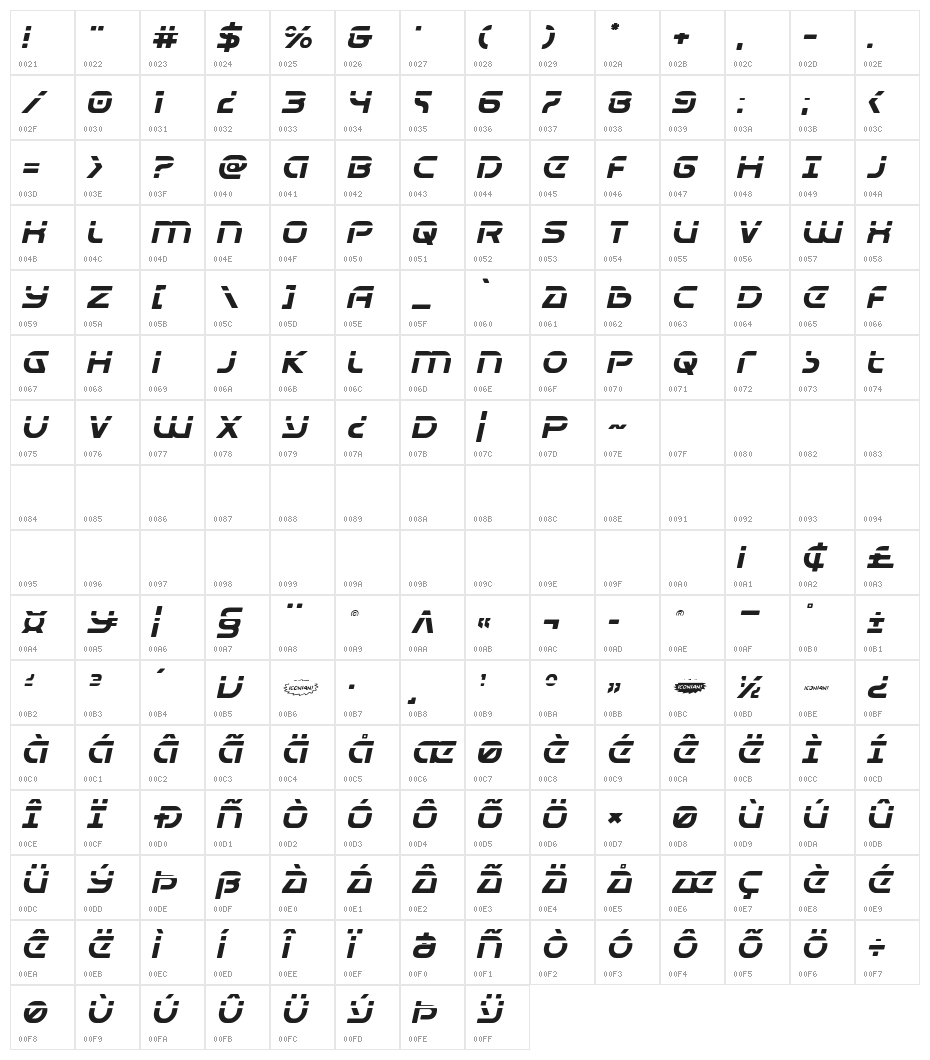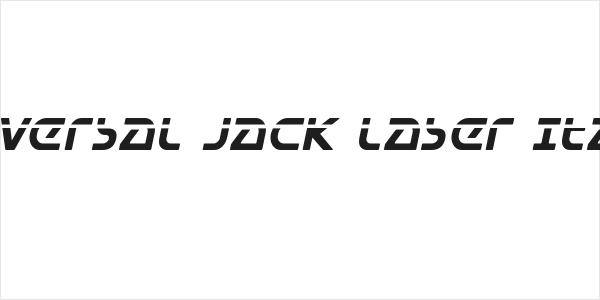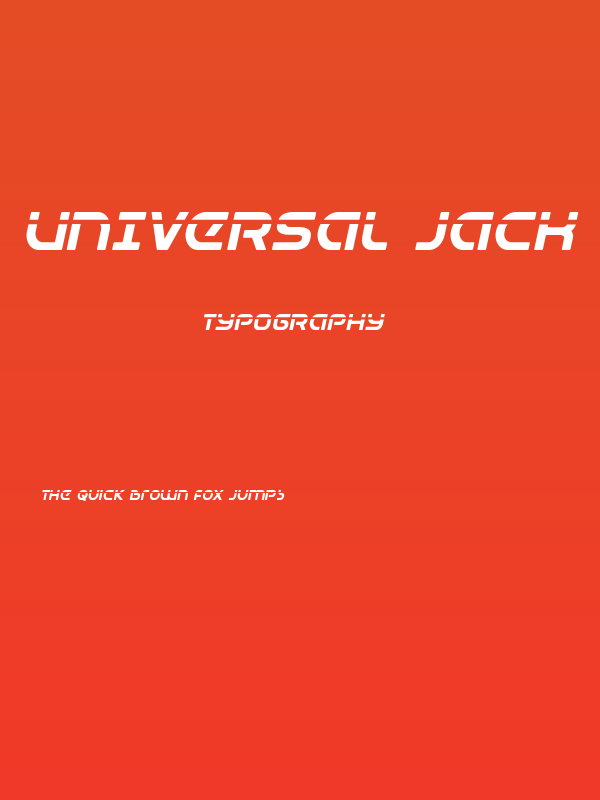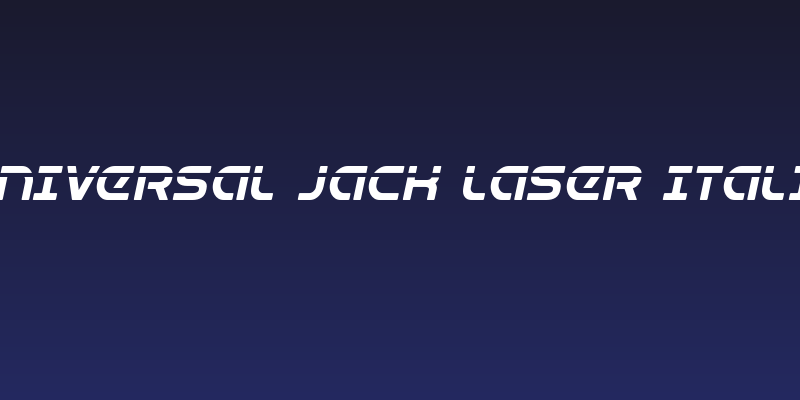
Universal Jack Laser Italic Font
Universal Jack Laser Italic Description
This font features a futuristic and dynamic style with a slanted, italicized appearance. The characters are bold and have a distinct geometric design, incorporating sharp angles and smooth curves. The overall look is sleek and modern, with a sense of motion and energy. The uppercase and lowercase letters maintain a consistent style, while the numerals and special characters complement the overall aesthetic. This font is ideal for projects that require a contemporary and cutting-edge look.